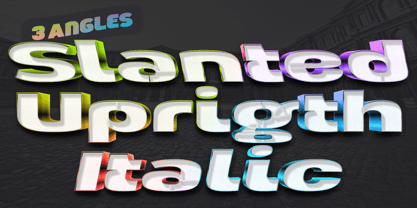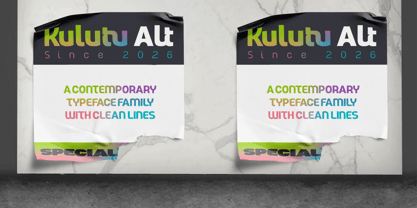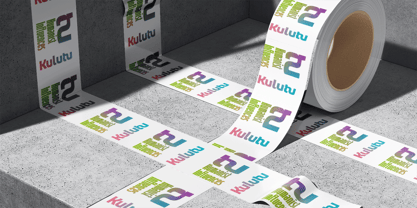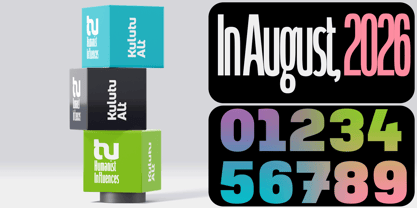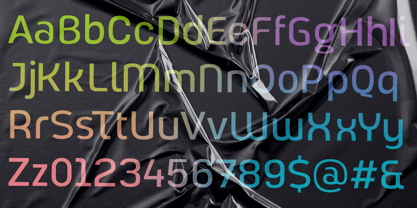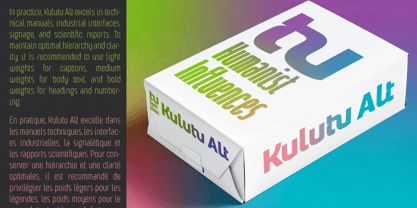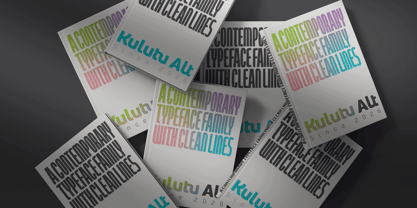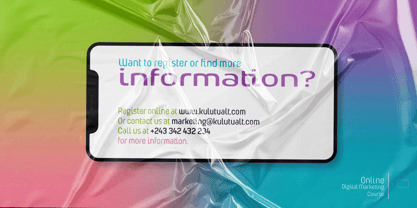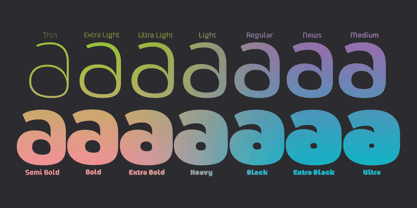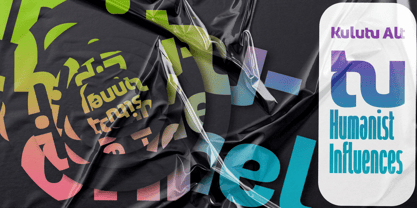
Kulutu Alt
Die Schriftfamilie Kulutu Alt wurde von Audry Makelele entworfen und von AukimVisuel veröffentlicht. Kulutu Alt enthält 288 Stile. Mehr über diese Familie
Kulutu Alt is a distinctive variation of the Kulutu typeface family, designed to enhance visual appeal while maintaining the original typeface's essence. Drawing inspiration from African cultural references and a commitment to authenticity, this version showcases reimagined character designs that broaden creative possibilities without sacrificing the typeface’s coherence. As a natural extension of Kulutu, it adds personality and variety to graphic compositions. With its alternative forms, Kulutu Alt achieves a harmonious blend of heritage and modernity. Certain glyphs feature more expressive silhouettes, reimagined curves, and unique details that reflect the rhythms, patterns, and craftsmanship of African art. This design approach empowers creators to craft nuanced visual identities, highlight the character of words, and impart a unique graphic signature to each project. Tailored for professional applications, Kulutu Alt integrates effortlessly into branding, publishing, fashion, gastronomy, premium packaging, cultural communication, and event design. Whether used independently or in conjunction with Kulutu, it provides significant compositional freedom, enabling designers to alternate typefaces for dynamic headlines, memorable logos, and layouts with striking visual impact. Positioned at the crossroads of tradition and contemporary design, Kulutu Alt is ideal for creators in search of a refined typeface that conveys a strong sense of identity. It enriches the Kulutu family with an additional expressive dimension, offering an elegant, authentic, and timeless aesthetic that enhances cultural projects and high-end brands aiming to establish a distinctive and original identity.